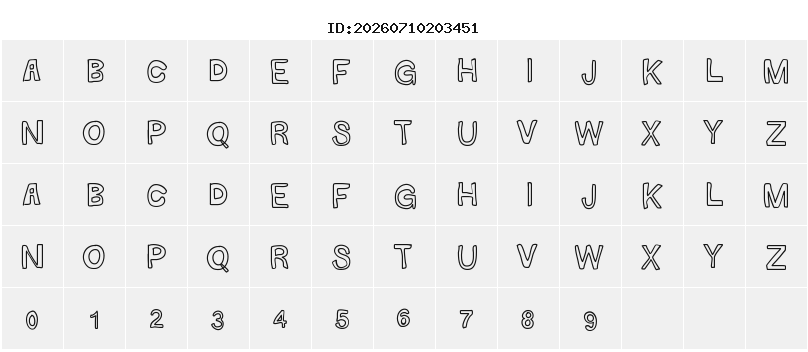
GaelleMAJUSCULE Preview
• Font Name: GaelleMAJUSCULE
• Full Font Name: GaelleMAJUSCULE
• PostScript Name: GaelleMAJUSCULE
About GaelleMAJUSCULE.ttf
GaelleMAJUSCULE.ttf is a modern, elegant sans-serif font designed for ultimate readability and visual harmony. Perfect for branding, headlines, web design, and print materials.